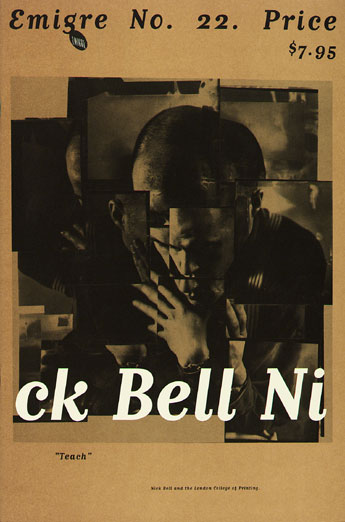
Here we focus on the work of London-based graphic designer and teacher Nick Bell. An in-depth interview will accompany and elucidate a sampling of briefs he created for his teaching at The London College of Printing.
Also, Bell introduces two new conceptual typefaces: Zelig "a typeface with the uncanny chameleon-like ability to change its appearance to something very similar to whatever typeface it is placed next to;" and Psycho "...a typeface defined more by its use, than by the design and consistency of each of its individual units." Psycho will be presented as a special insert which was hand produced by Nick Bell and his students at The London College of Printing.